Incredible Goofy Fonts Ideas
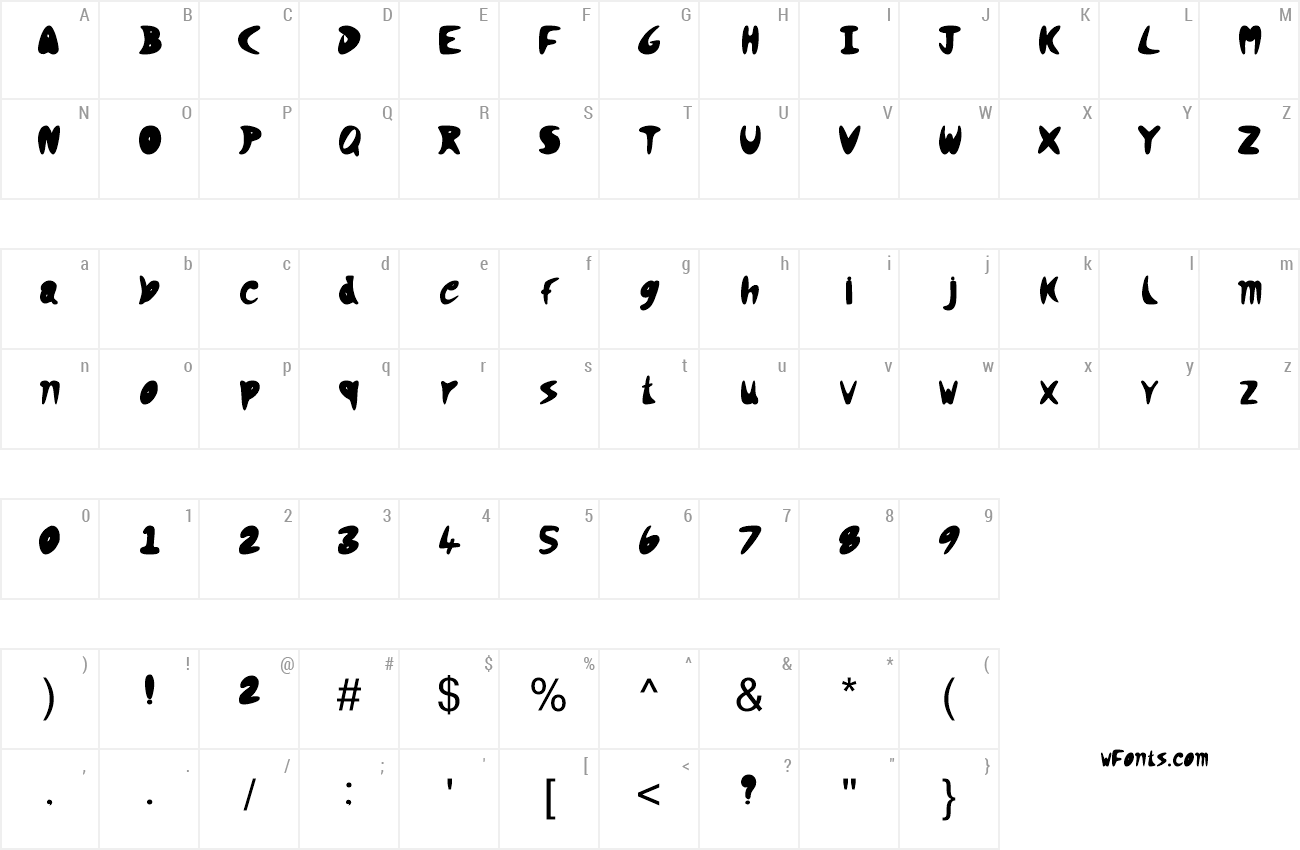
Download The Life Is Goofy Font By Louis Fineberg.
Web Bunny Goofy By Edric Studio.
We Made It Uniquely With Special Shapes Inspired From Kids First.